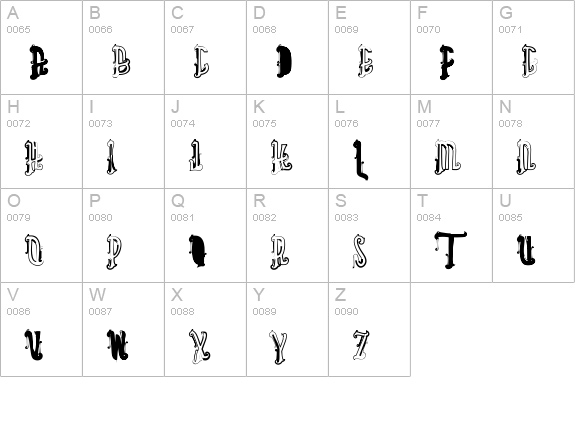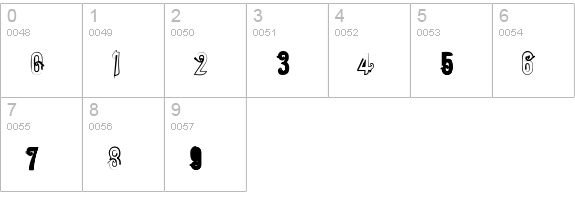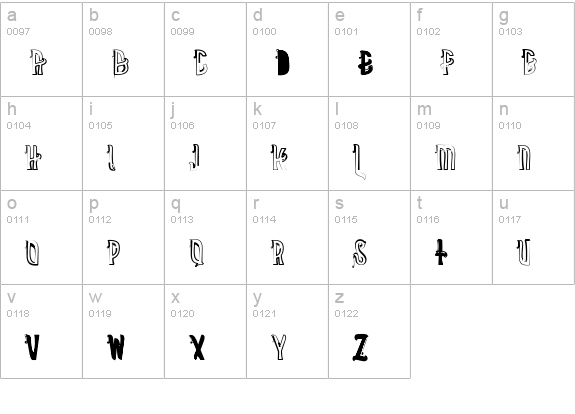
Folksbeatyou Font Details
Folksbeatyou is a free for personal use font in the Script > Graffiti category, designed by Serin Studio. It has been downloaded 207 times and is available for Windows, Mac and Linux.
Folksbeatyou font is a charming and versatile typeface that effortlessly combines modern elegance with a touch of whimsical flair. Its sleek lines and playful curves make it perfect for a wide range of design projects, from branding and advertising to invitations and social media graphics.